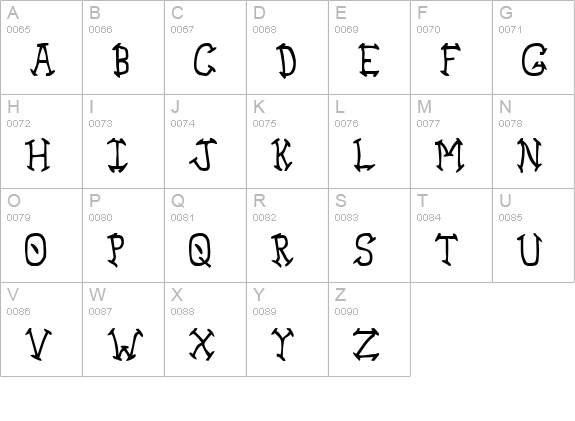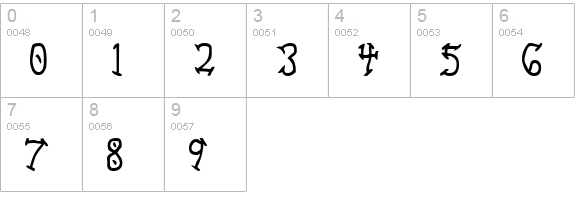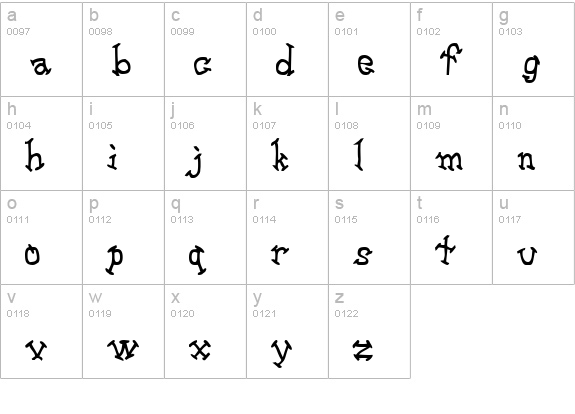
TR Aswell Bold Font Details
TR Aswell Bold is a strong, high-contrast variant in the TR typeface family \xE2\x80\x94 well suited to headlines, attention-grabbing titles, and strong calls-to-action.
TR Aswell Bold is a striking and modern typeface that exudes confidence and strength. With its bold and impactful design, this font is perfect for making a statement in your design projects. The strong and sturdy letterforms of TR Aswell Bold make it ideal for headlines, titles, and branding materials. This versatile font is free to download at FontsMarket.com, making it accessible to designers and creatives looking to add a touch of boldness to their work. Whether you're working on a poster, logo, or website design, TR Aswell Bold will make your text stand out and leave a lasting impression on viewers. Don't miss out on the opportunity to enhance your designs with this powerful and stylish font. Download TR Aswell Bold for free today and take your projects to the next level.